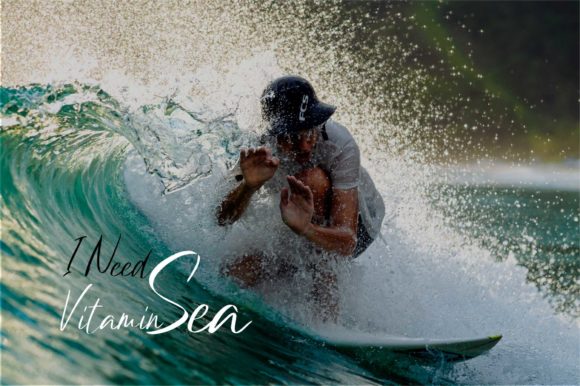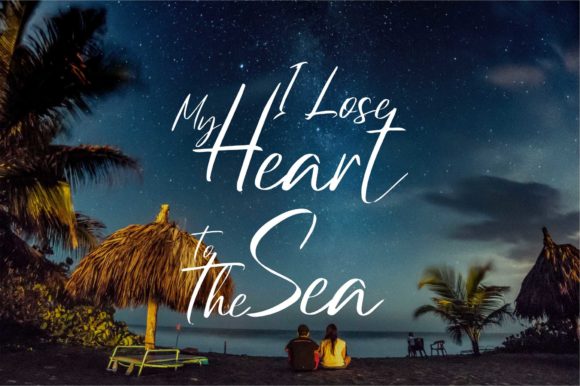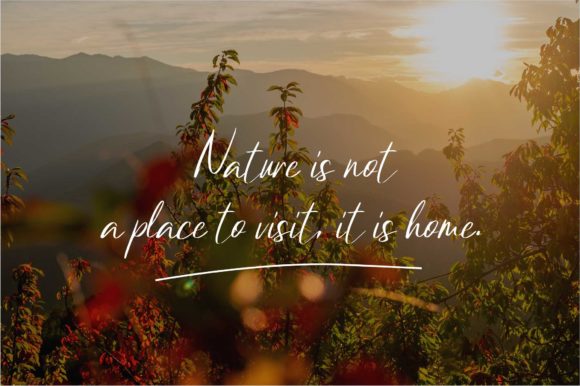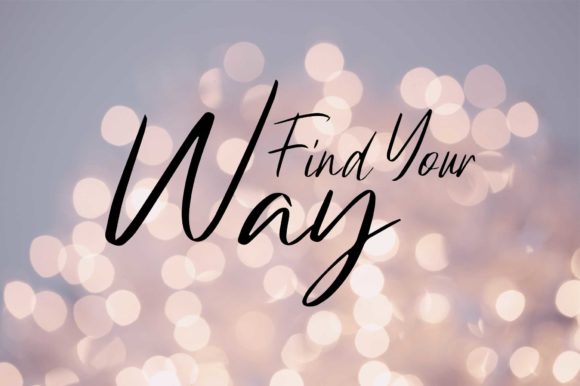
Saturday Night Font
About Saturday Night Font
The Saturday Night is an elegant handwritten font. It’s ideals for layout magazines, quotes, branding and decoration.